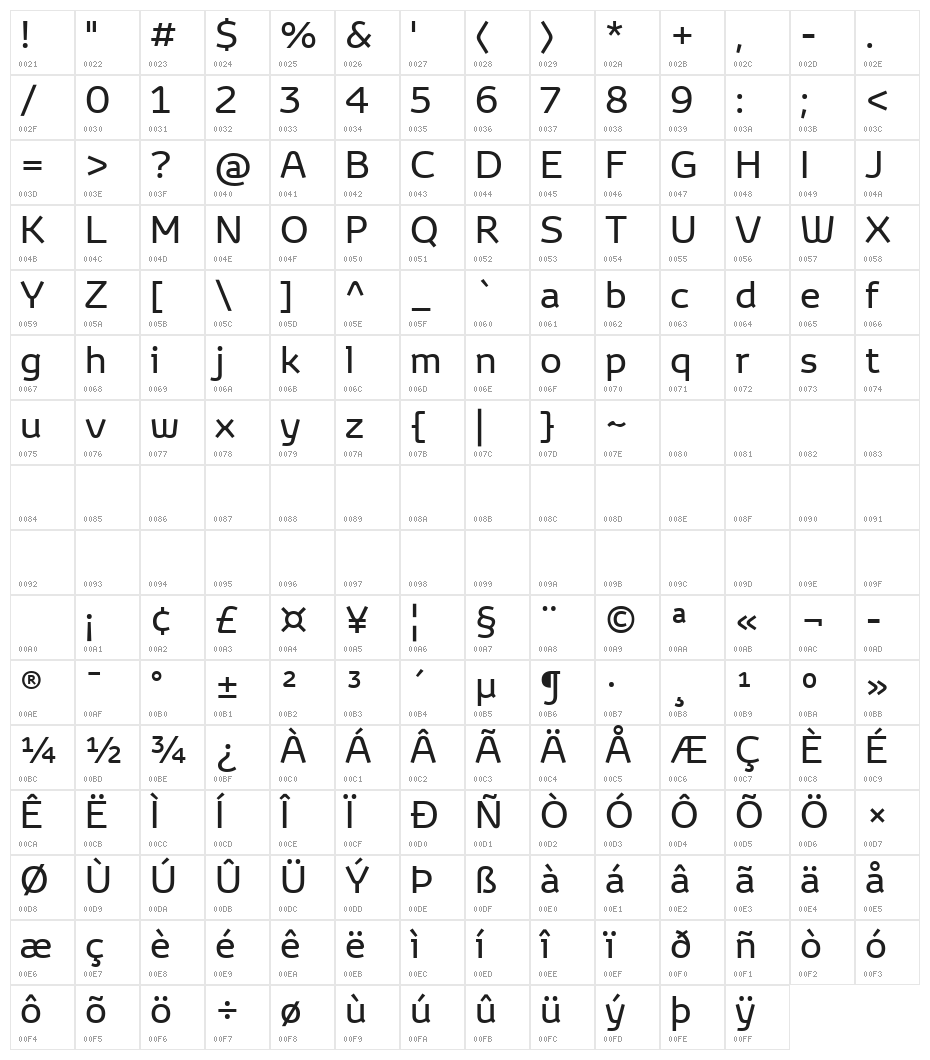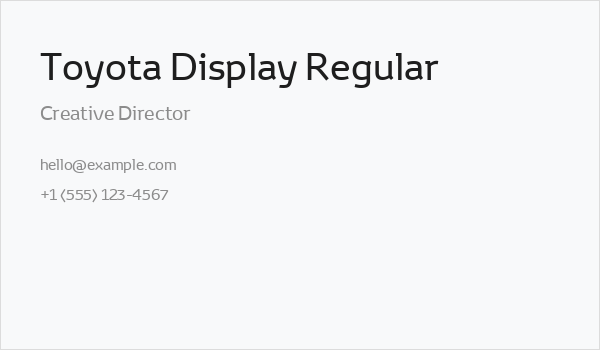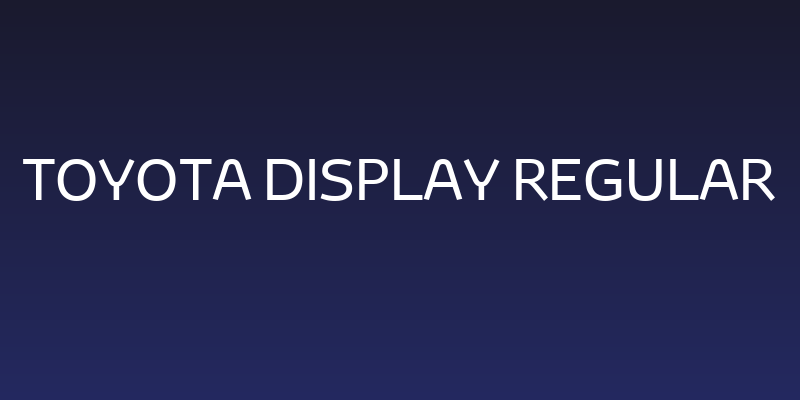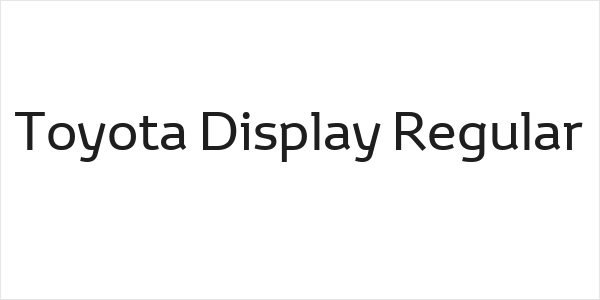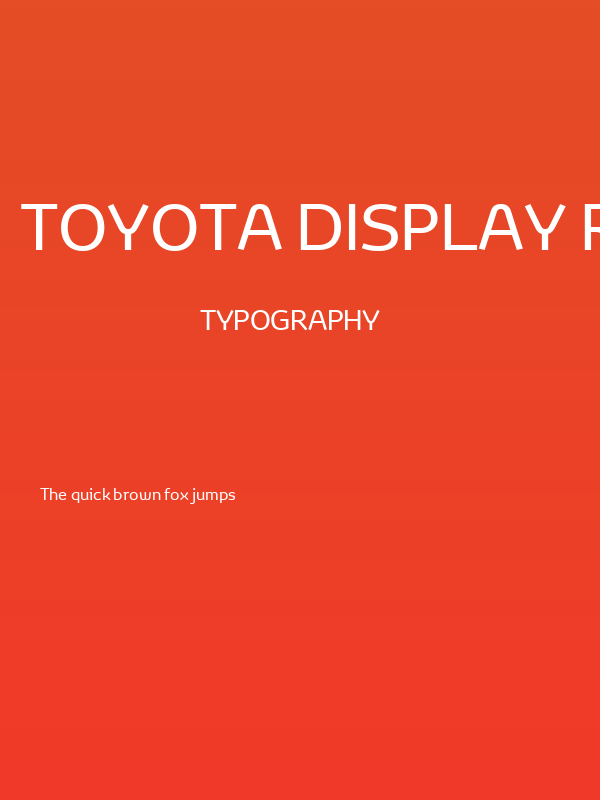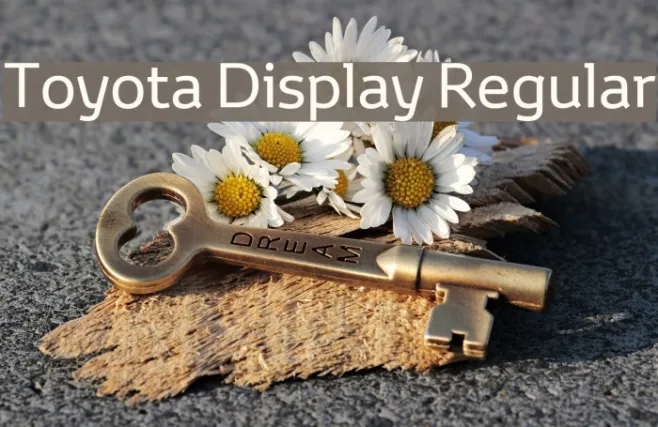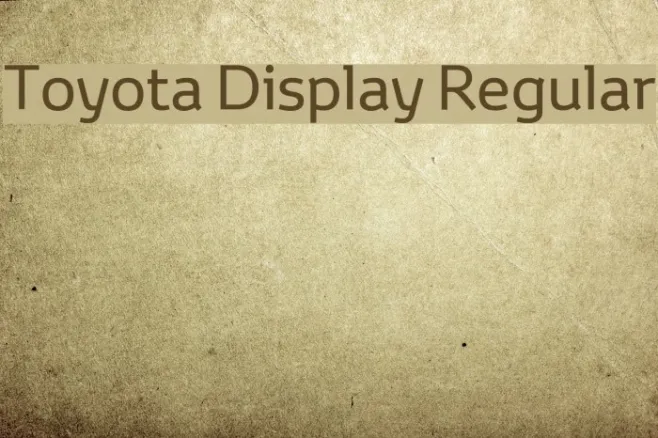
Toyota Display Regular Font
Toyota Display Regular Description
This font features a clean and modern sans-serif design, characterized by its geometric shapes and uniform stroke widths. The uppercase letters are bold and assertive, while the lowercase letters maintain a consistent and harmonious appearance. The numerals are clear and legible, making them suitable for various applications. Special characters are well-defined, adding versatility to the font's use. The overall style is sleek and contemporary, making it ideal for digital and print media.
| Proposed Projects | Ideal for branding, digital interfaces, advertising, and editorial design. |